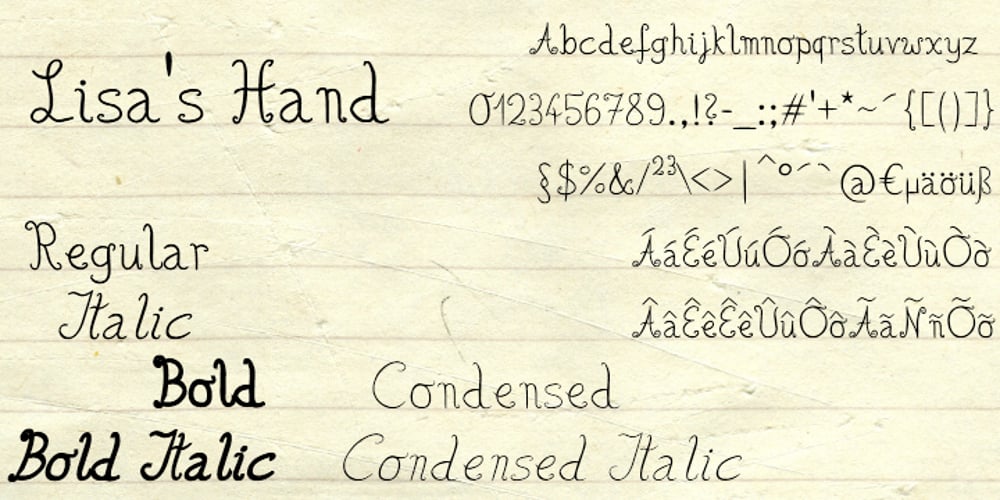
Lisa’s Hand Font Family was designed by Matthias Luh and published by Matthias Luh. Lisa’s Hand contains 6 styles and family package options. Lisa’s Hand is a well-formed handwritten Font. The letters are not connected which combines the style of both handwritten and computer fonts. Lisa’s Hand is offered in Regular, Bold, Italic, Bold Italic, Condensed and Condensed Italic.